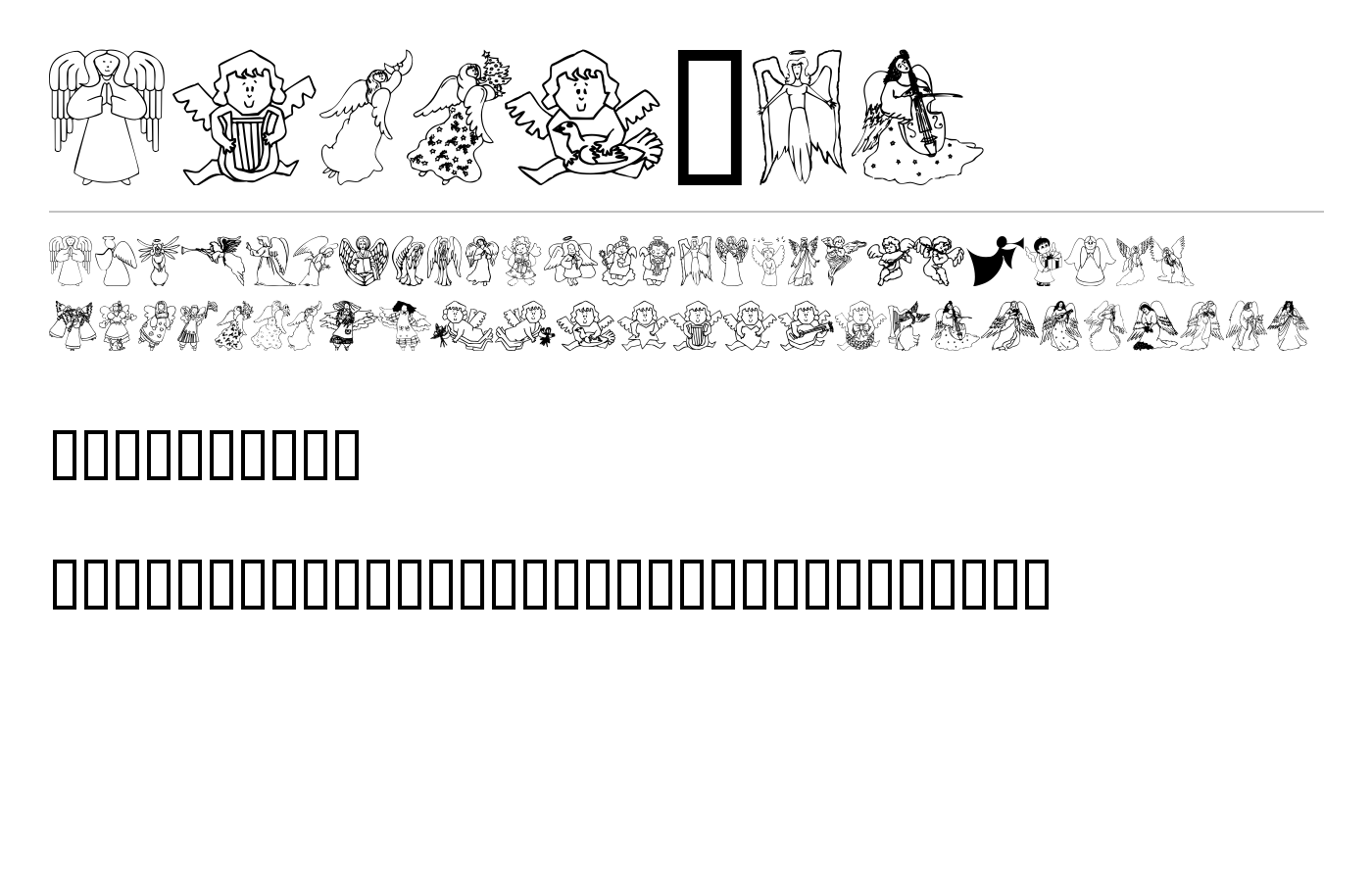
Angel'Os is a decorative dingbat font featuring charming angel illustrations in a variety of playful and delicate poses. This whimsical font adds a gentle, heartfelt touch to creative projects, making it ideal for festive designs, invitations, and spirituality-themed artwork where a warm, uplifting visual element is desired.
Angel'Os Font
About Angel'Os Font